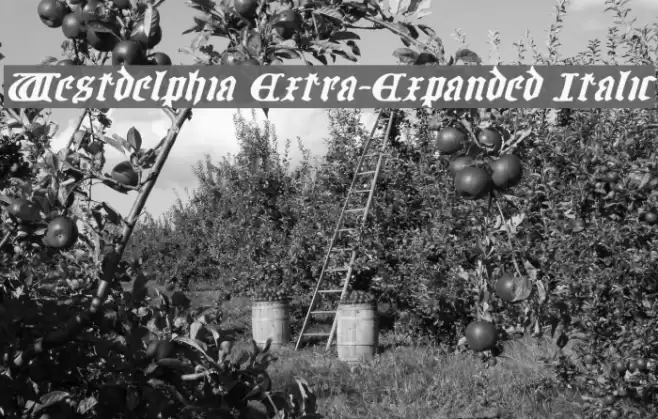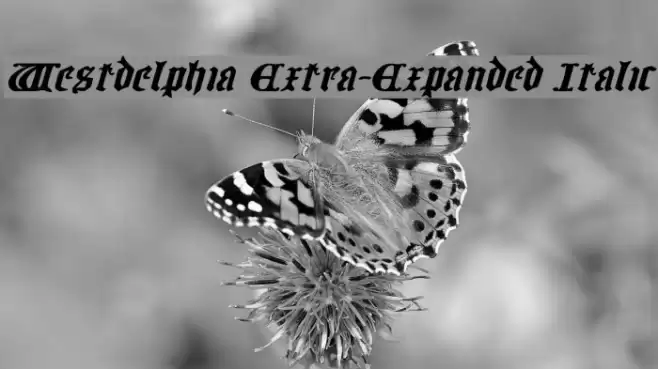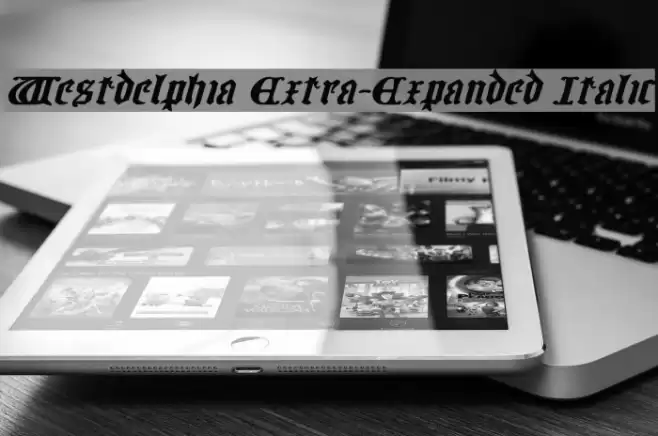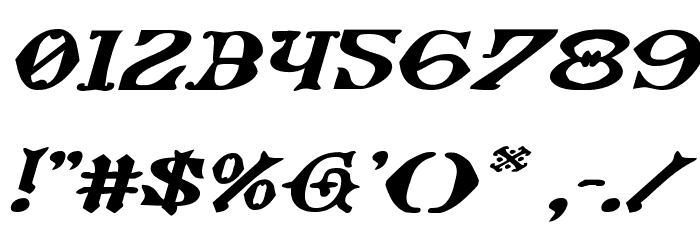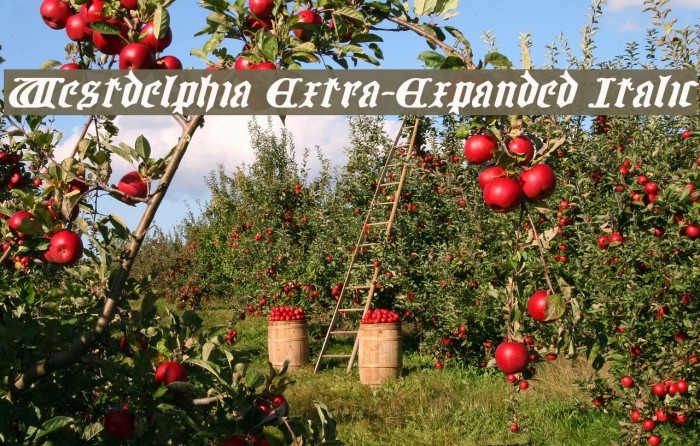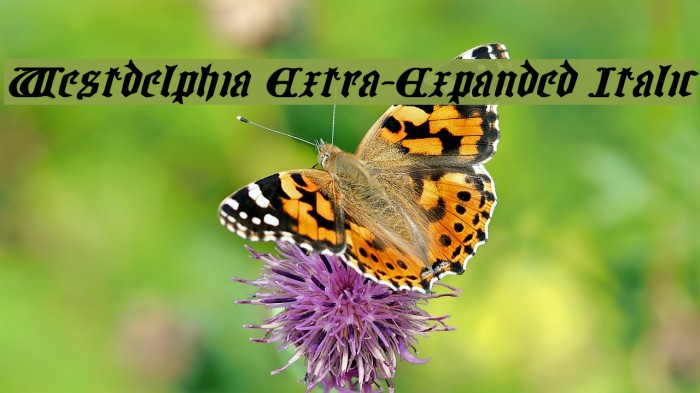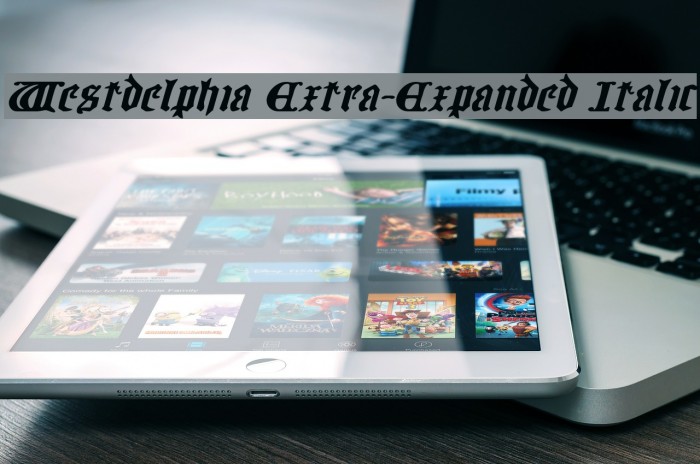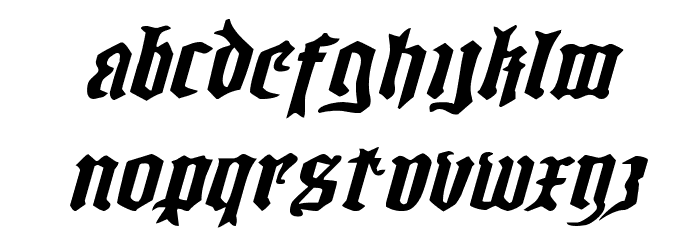
Westdelphia Extra-Expanded Italic Font
Westdelphia Extra-Expanded Italic Description
This font features a bold and dramatic style, characterized by its blackletter-inspired design. The letters have a distinct, angular form with sharp edges and intricate detailing, giving it a gothic and medieval appearance. The italic slant adds a dynamic and fluid motion to the characters, enhancing its decorative nature. The uppercase letters are particularly ornate, with elaborate flourishes and unique shapes that make each character stand out. The lowercase letters maintain the same stylistic elements, ensuring consistency throughout the typeface. The numbers and special characters are equally stylized, fitting seamlessly with the overall aesthetic.
A bold, blackletter-inspired font with an italic slant and ornate detailing from Gothic fonts.
- Proposed Projects: Ideal for projects requiring a gothic or medieval theme, such as fantasy book covers, historical event posters, or themed invitations.